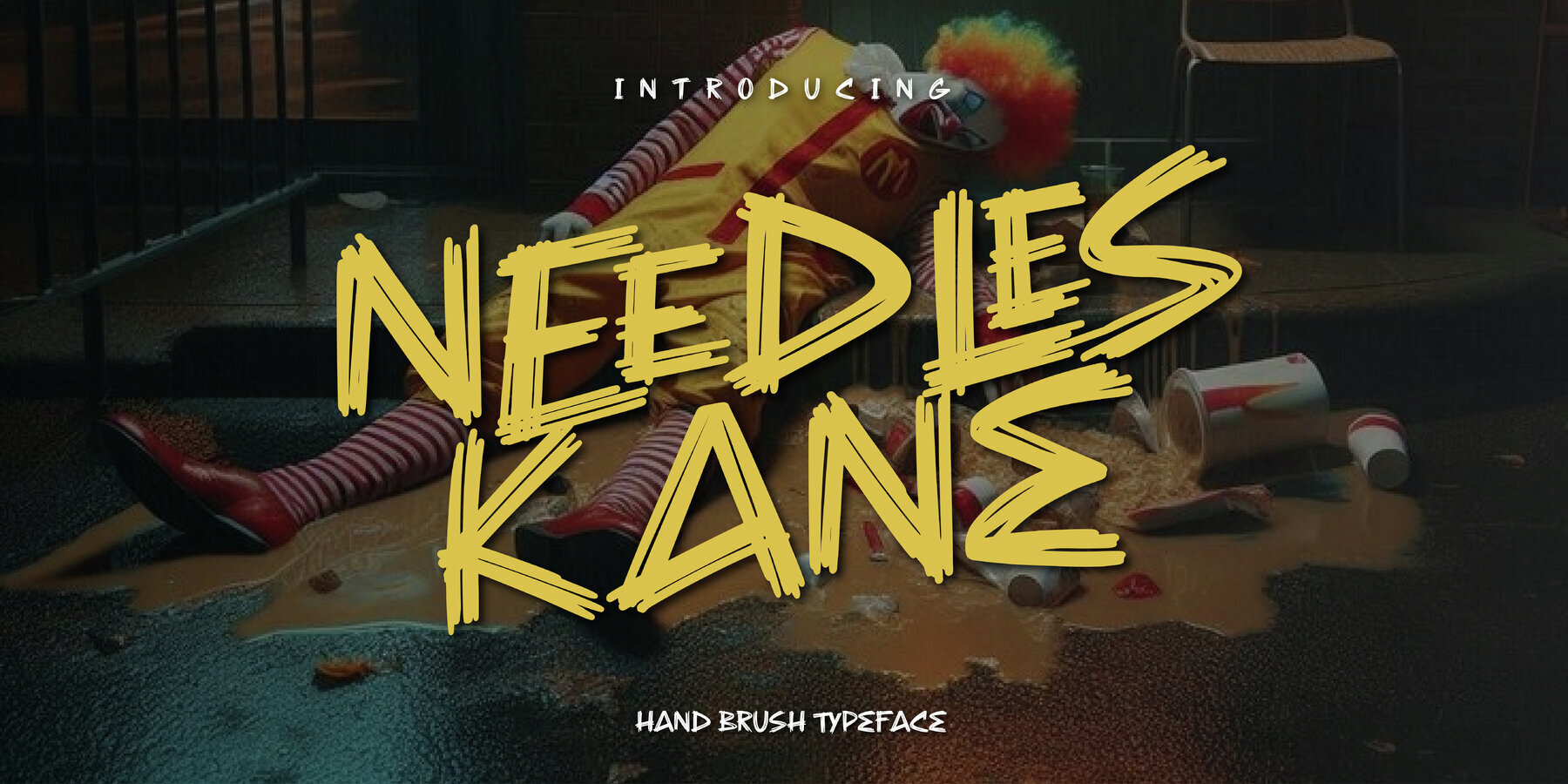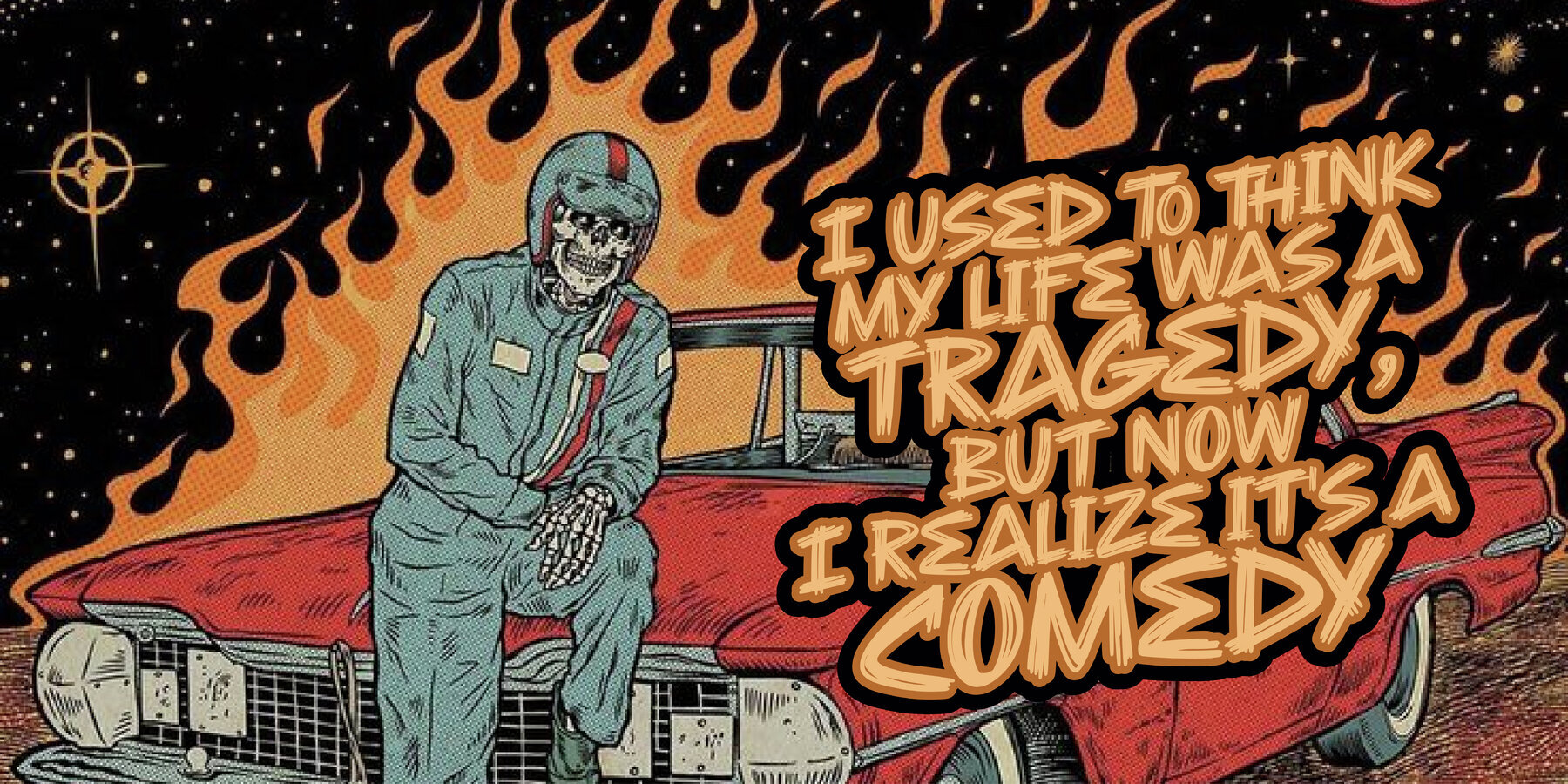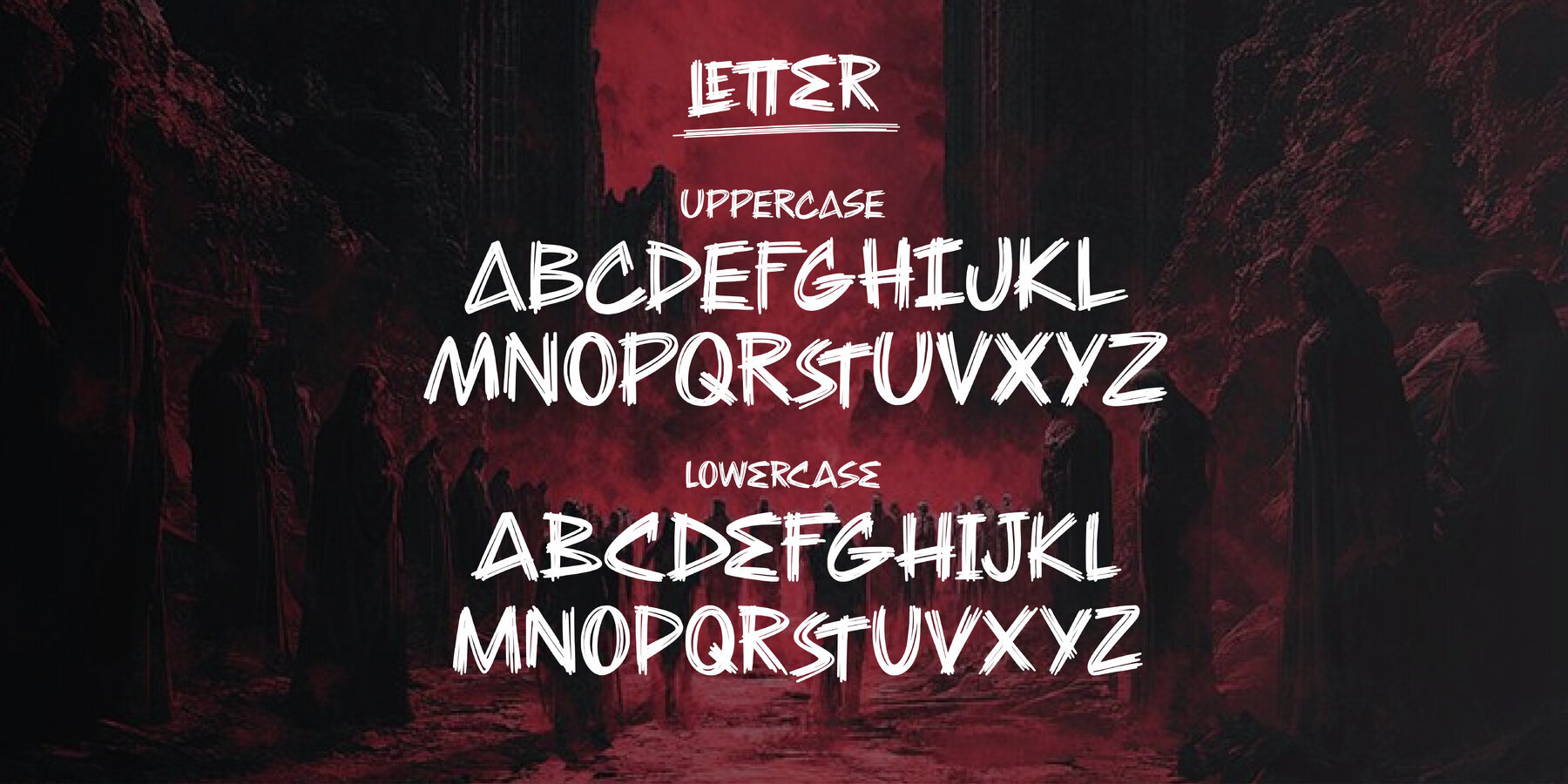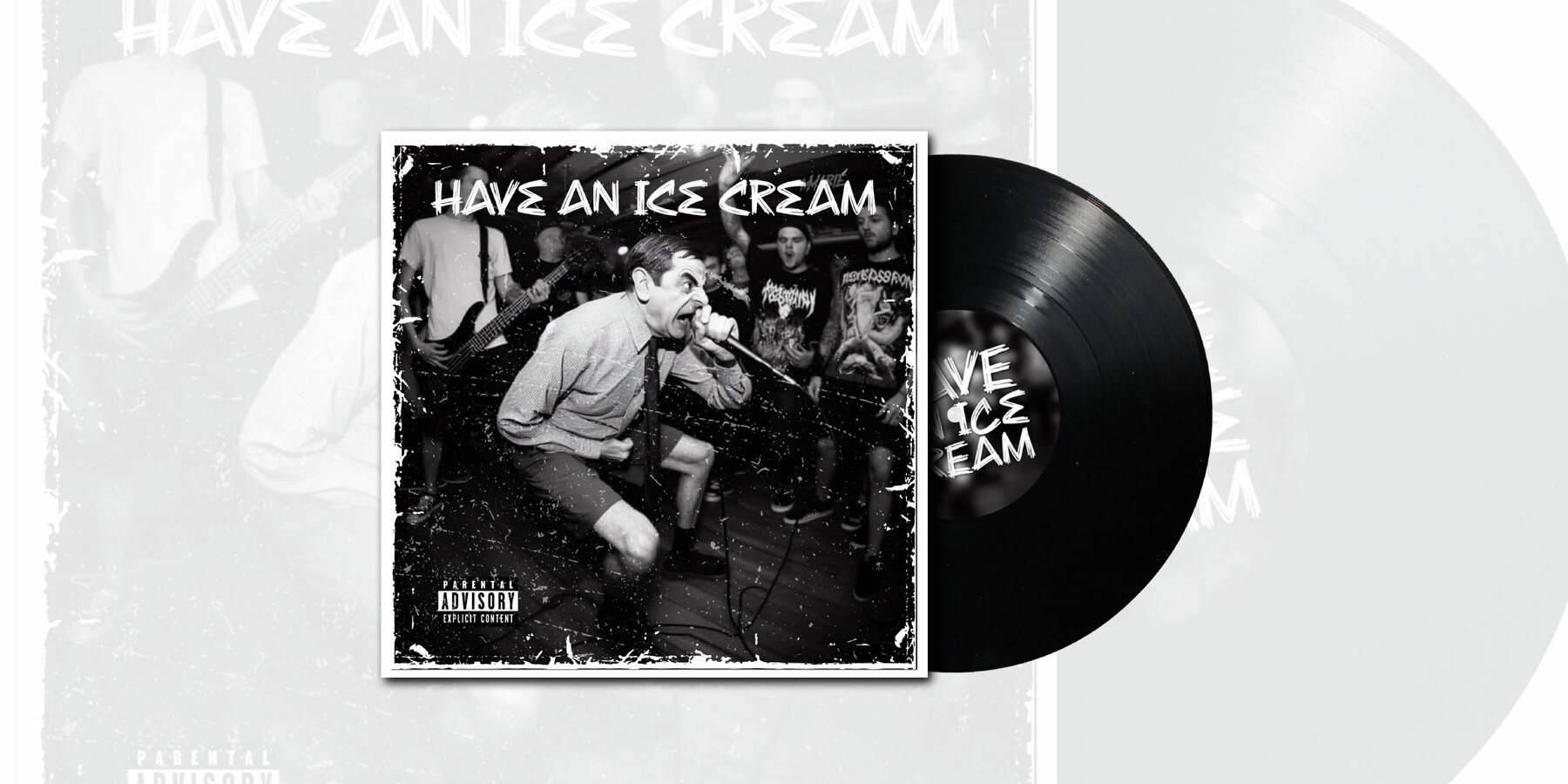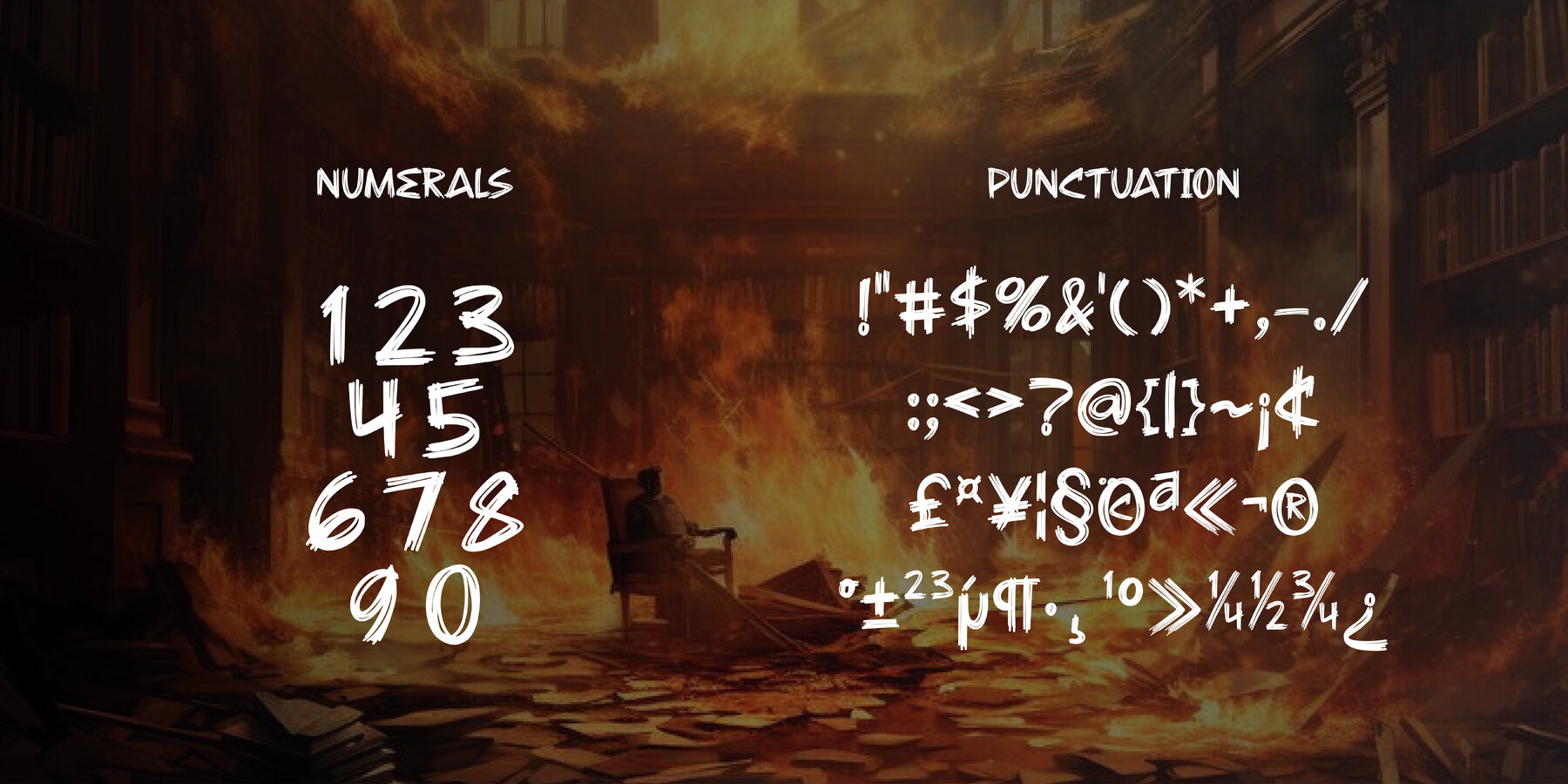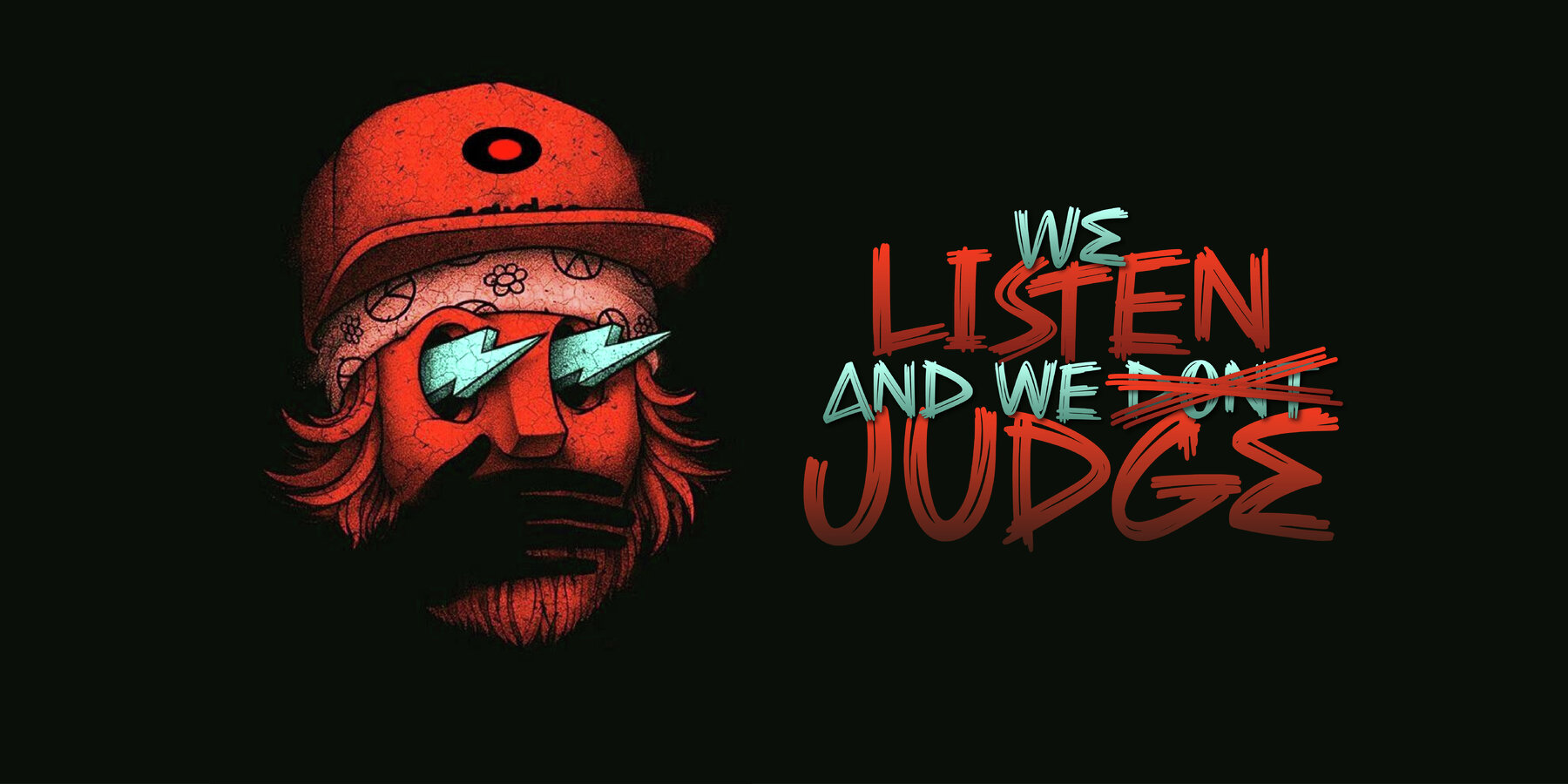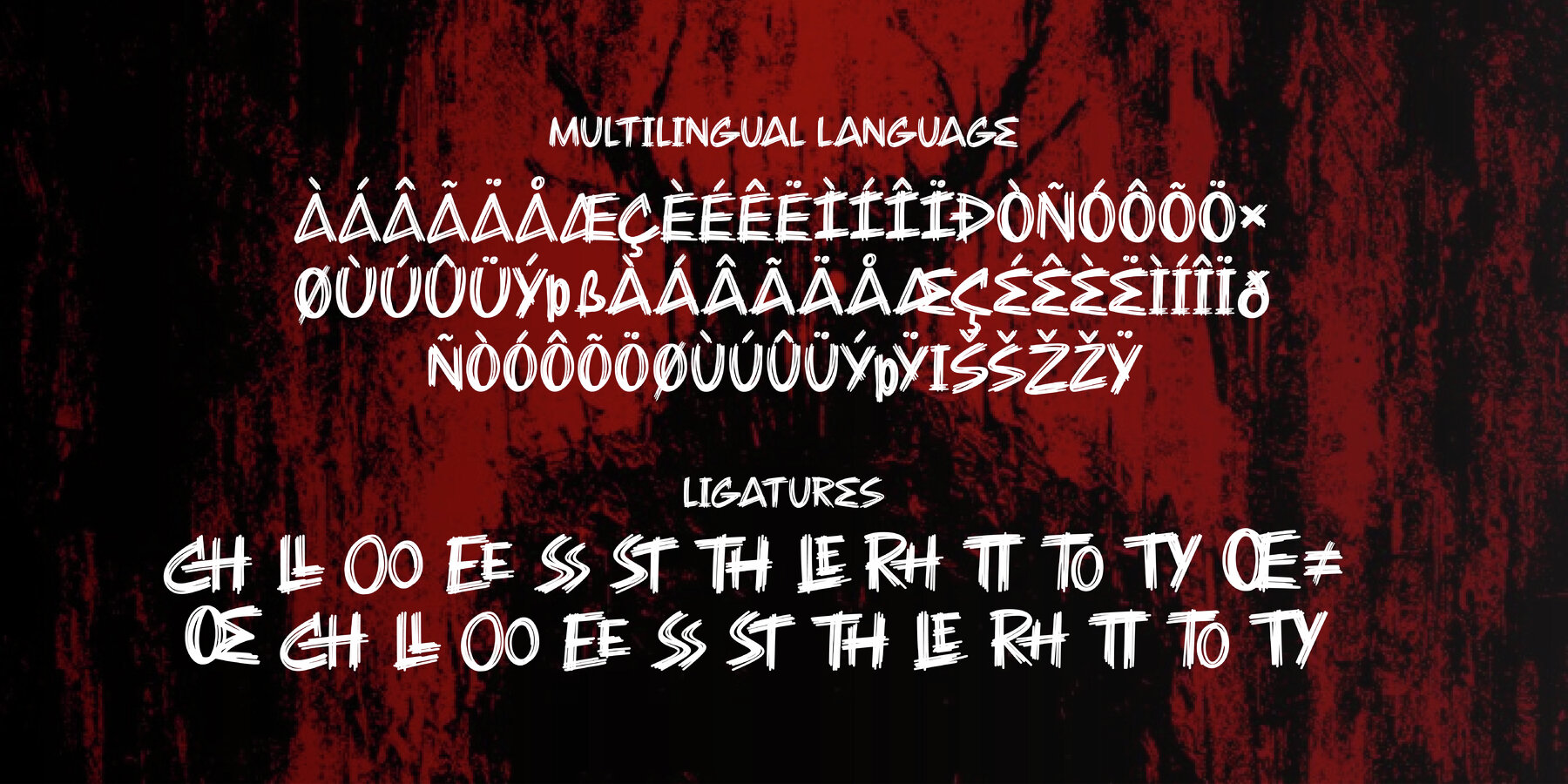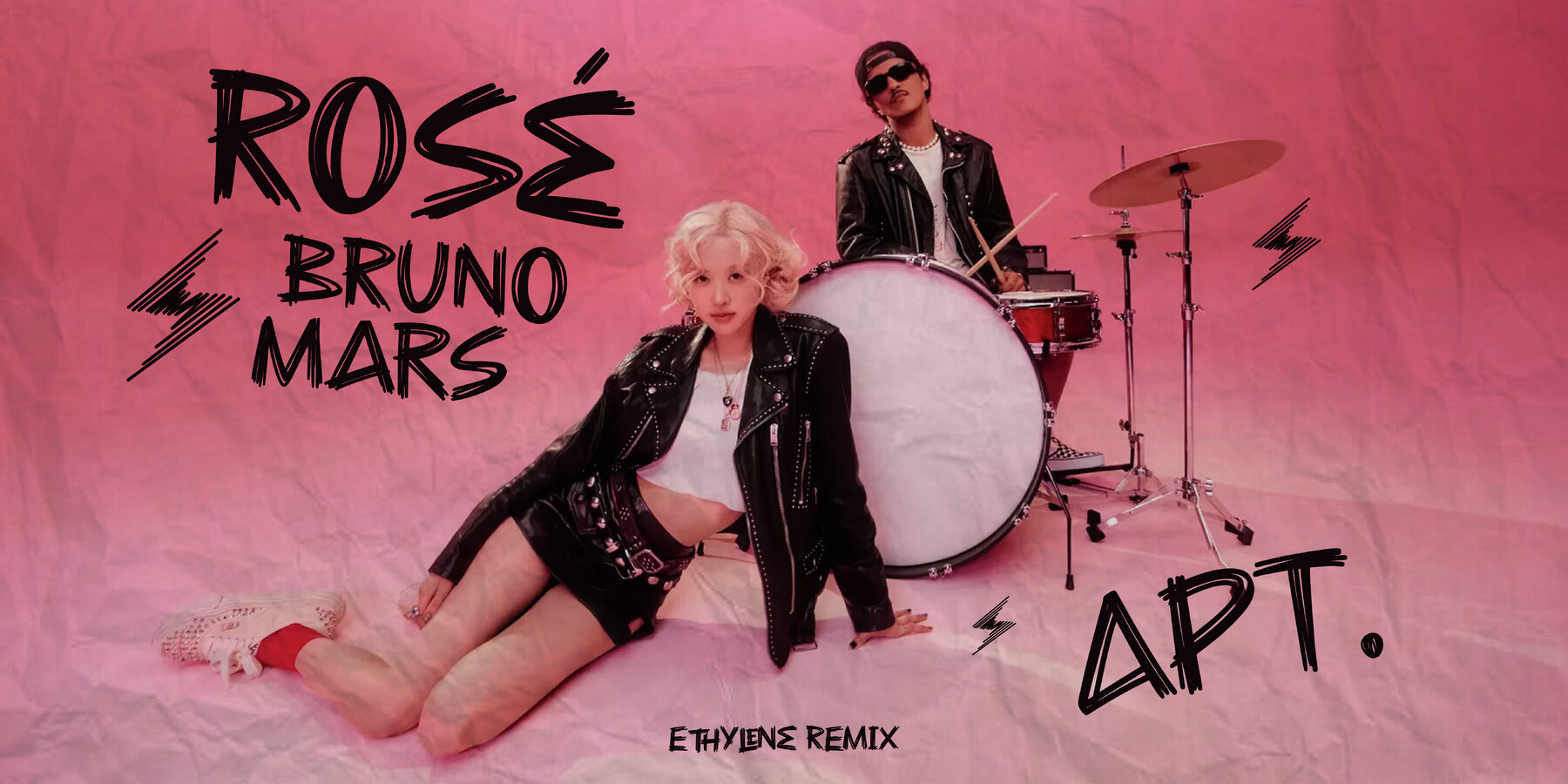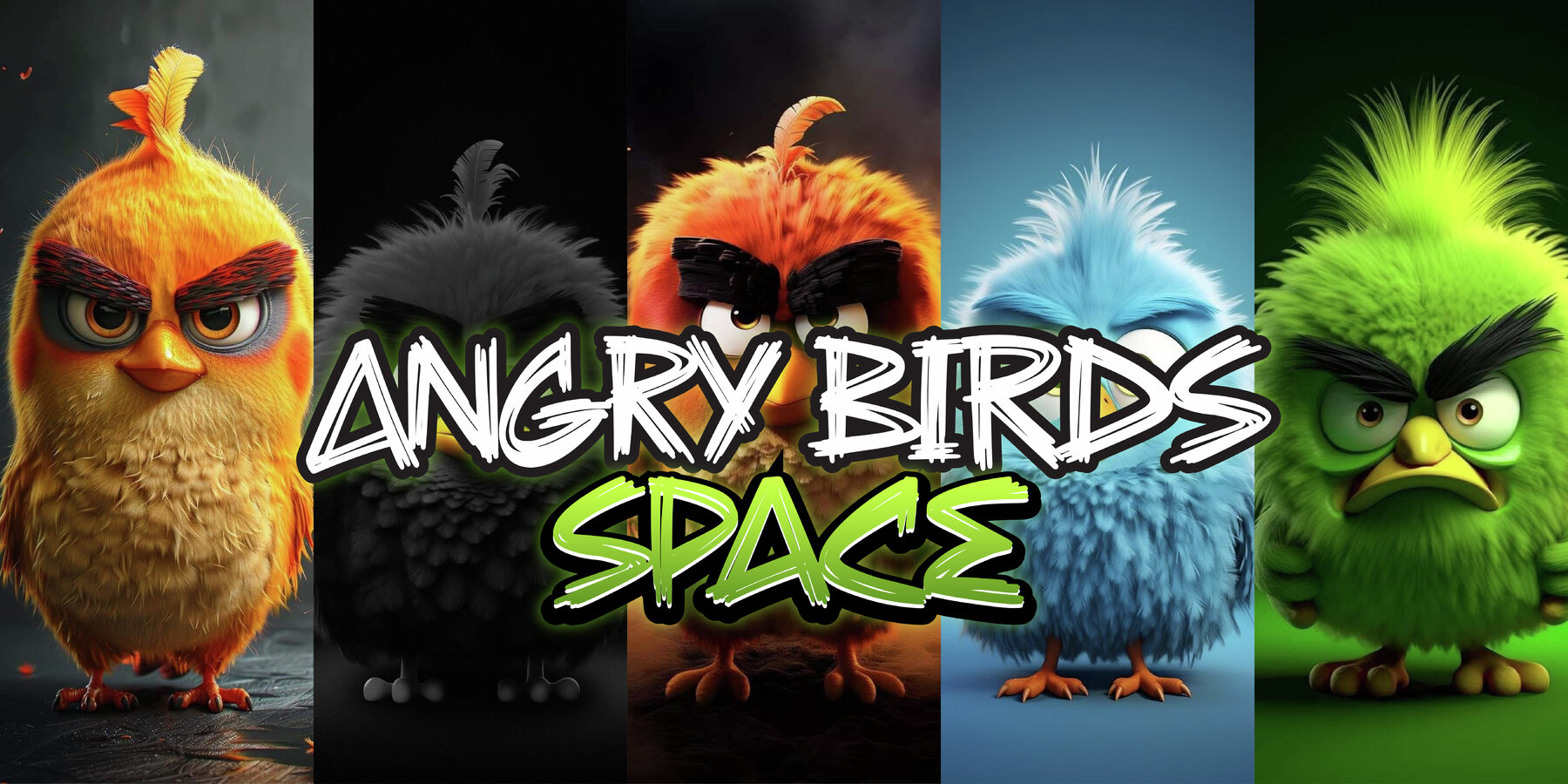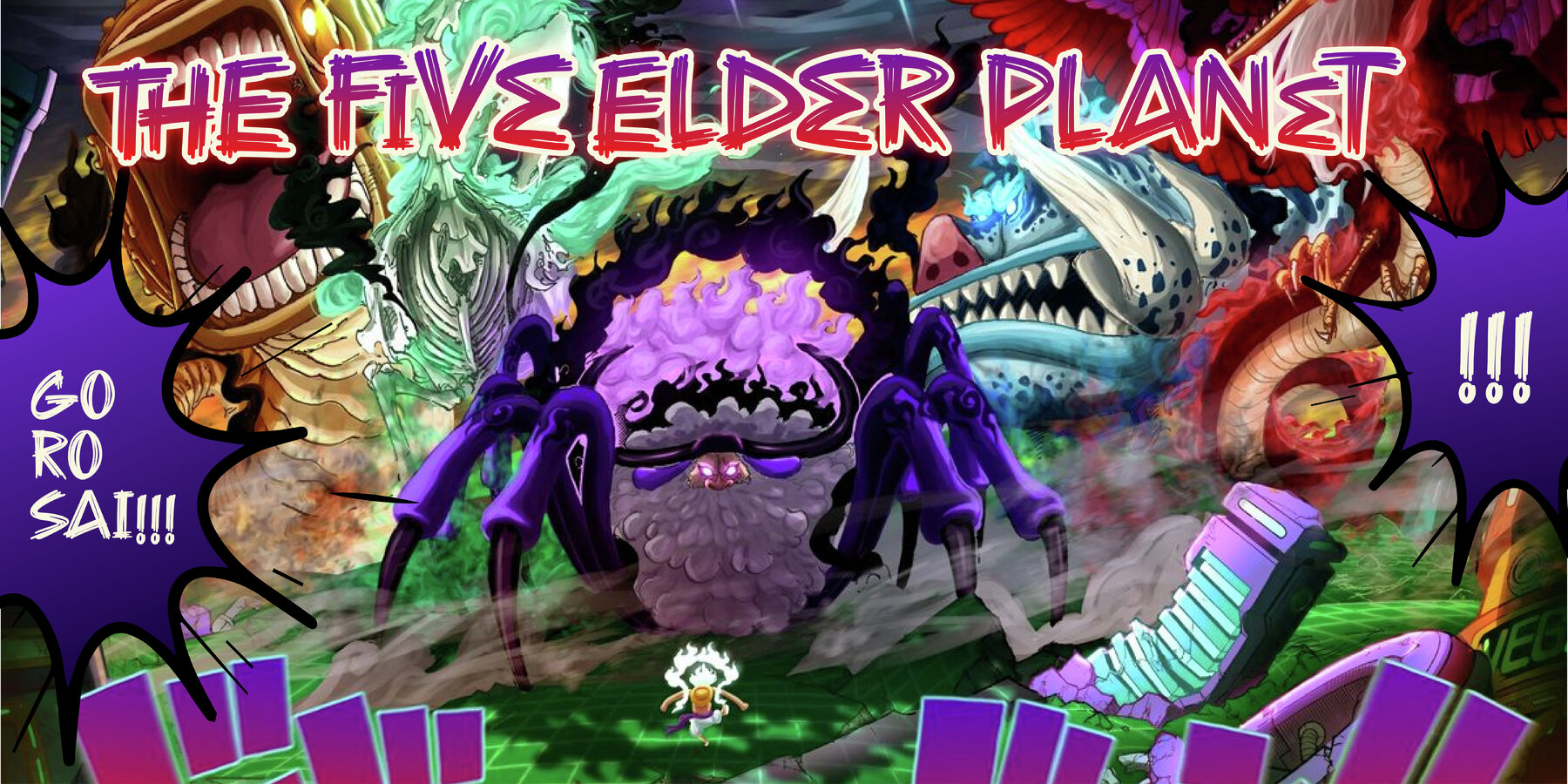
Needles Kane Font
Needles Kane
Needles Kane is a distinct handwritten brush-style font that invites a unique flair to your creative projects. With its carefully crafted ligatures, this font enhances any design need with character and personality. Ideal for book covers, game titles, YouTube thumbnails, social media posts, logos, and more, Needles Kane offers a versatile option for designers seeking to incorporate a handwritten feel into their work.
The font's natural and organic brush strokes provide a dynamic aesthetic, setting your designs apart with ease. Transform your projects with the charming and authentic look of Needles Kane, a perfect choice for those who appreciate the artistry of hand-drawn typography.